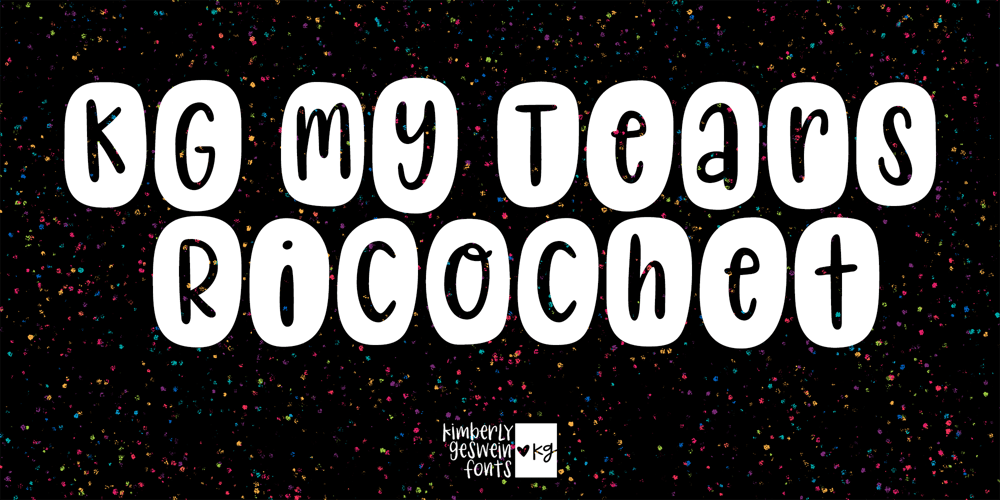
KG My Tears Ricochet Font Family was designed by Kimberly Geswein and published by Kimberly Geswein. KG My Tears Ricochet contains 1 styles and family package options. I love playing with shapes and whimsical designs. This font was designed with creatives in mind. I can imagine this on t-shirts, greeting cards, and children’s products. I enjoyed the idea of thinking of each shape as a unique “splotch” with slight variations. The letters inside are playful but still legible for actual use.